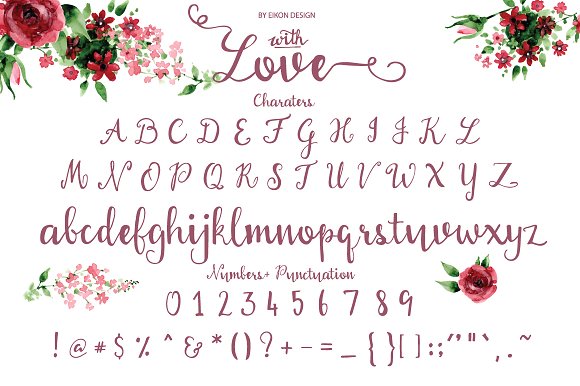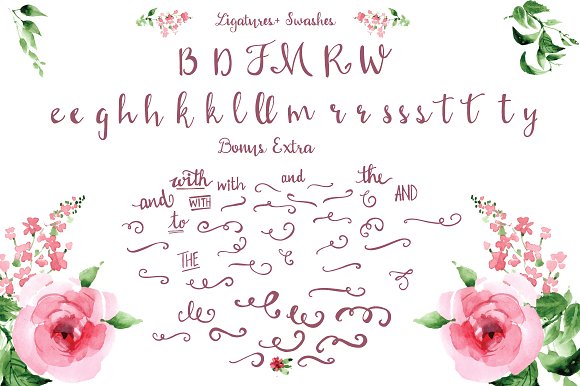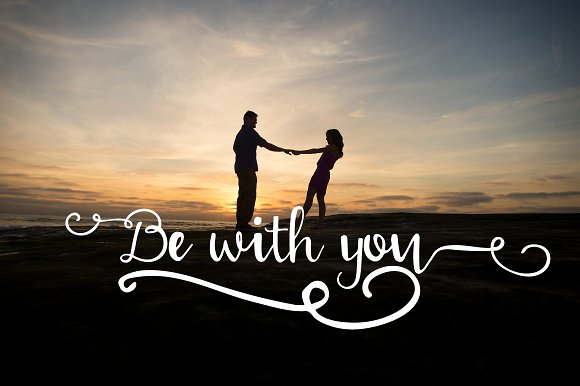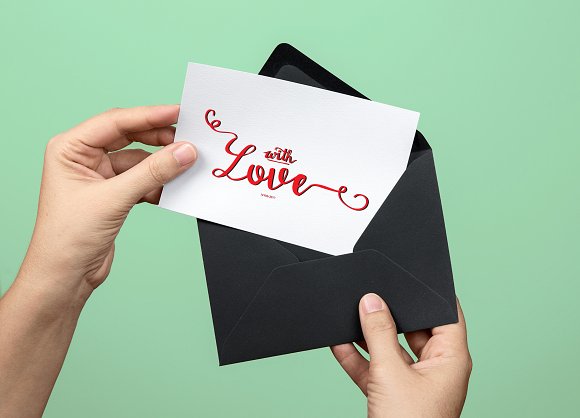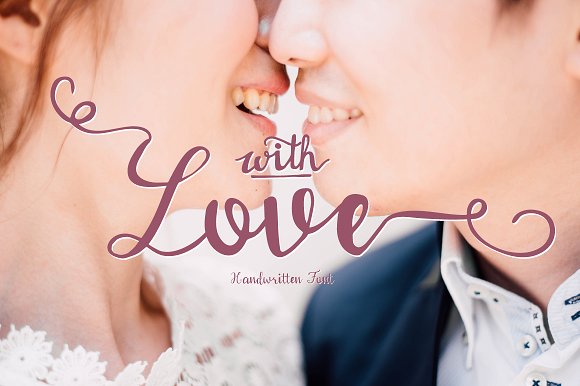
With love Handwritten Font
Introducing With love handwritten , font to make your text look so cute. With a signature style that makes it look more impress. Ideal for your branding, handwritten quotes, logo, header, poster, apparel, packaging, business cards, etc.